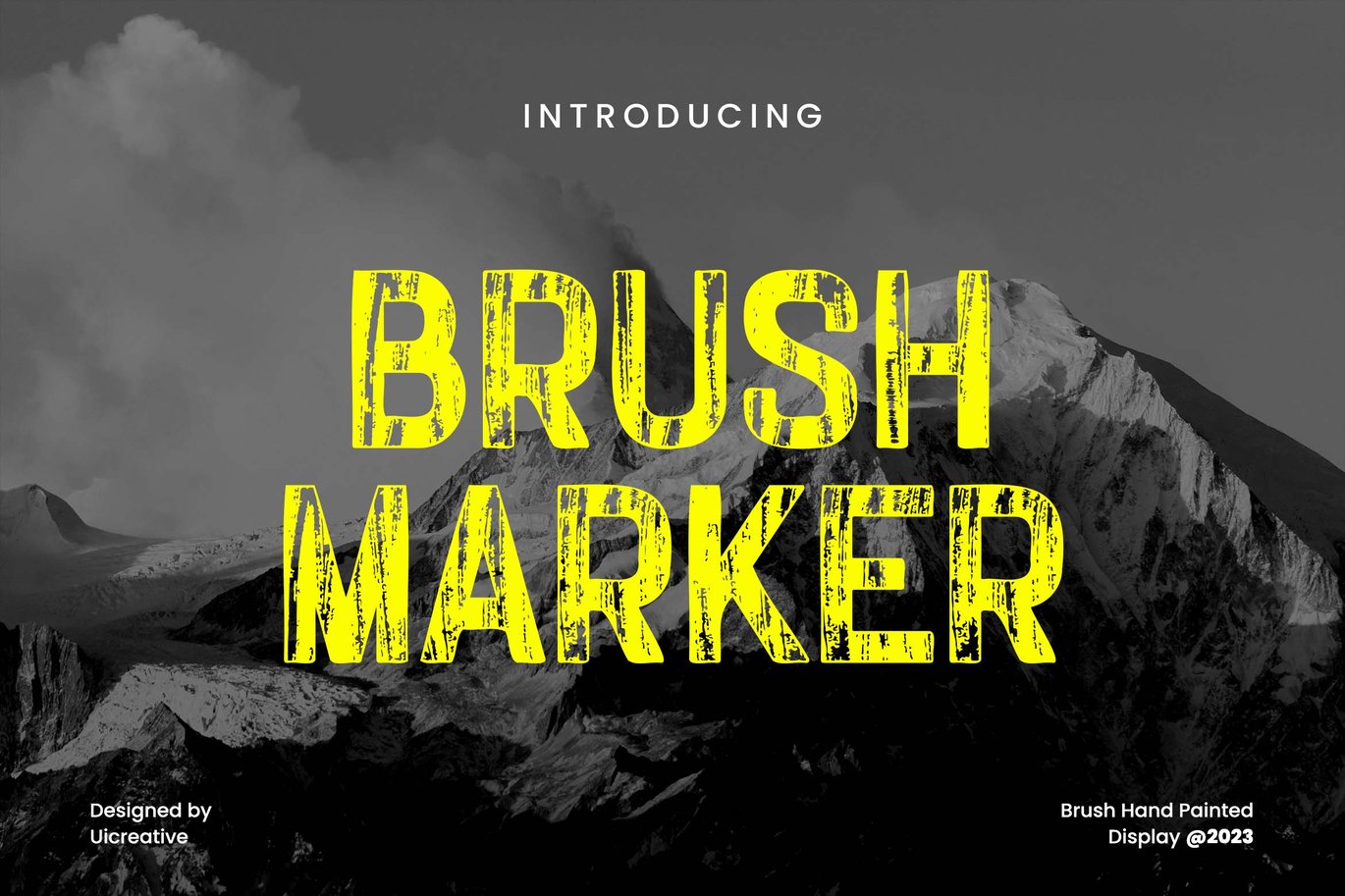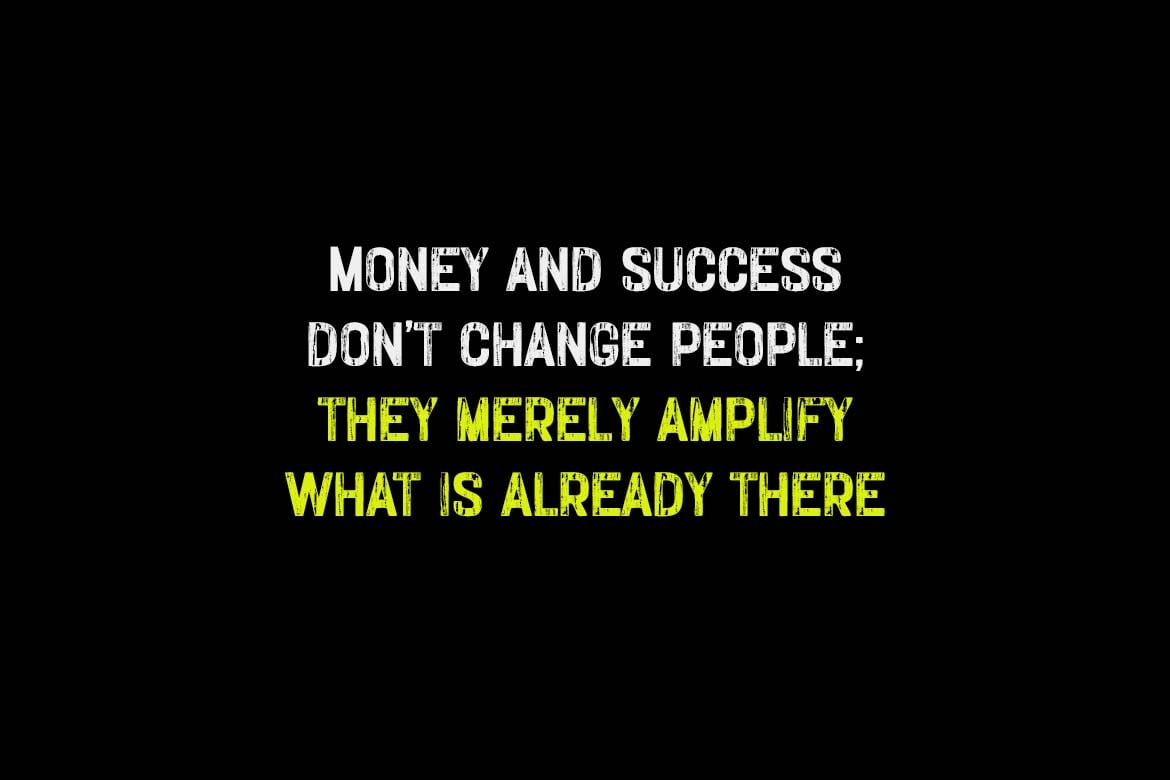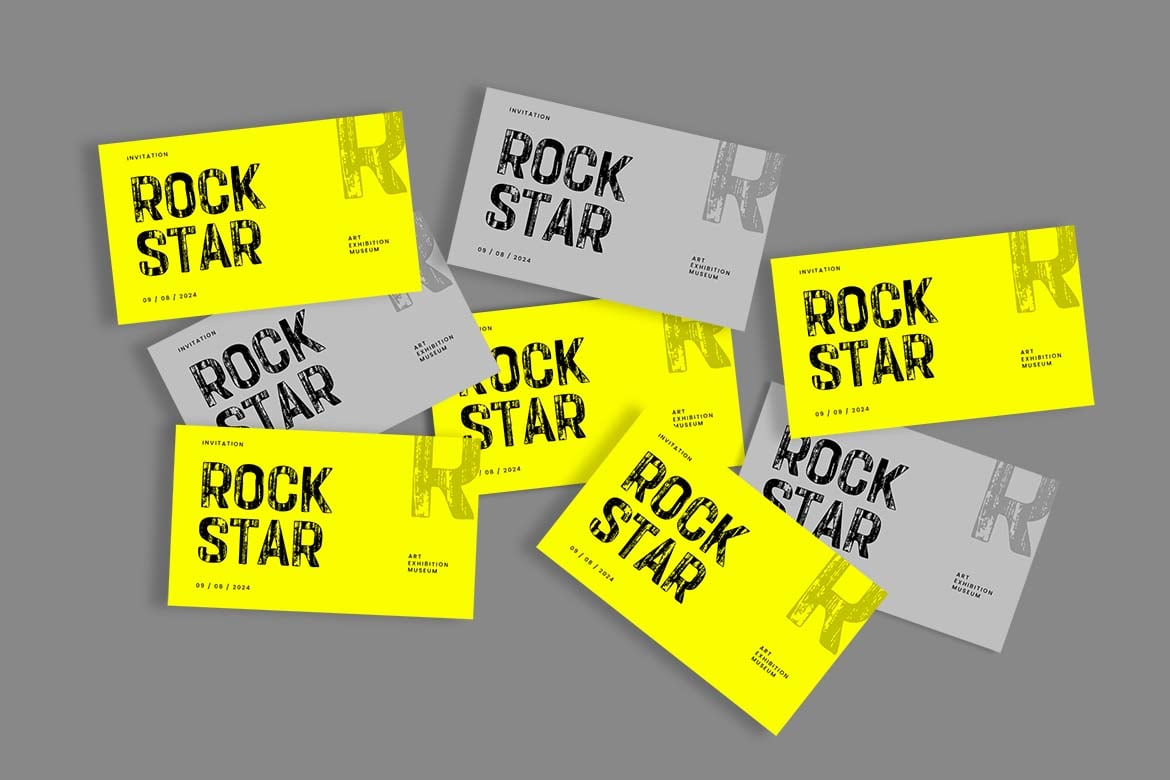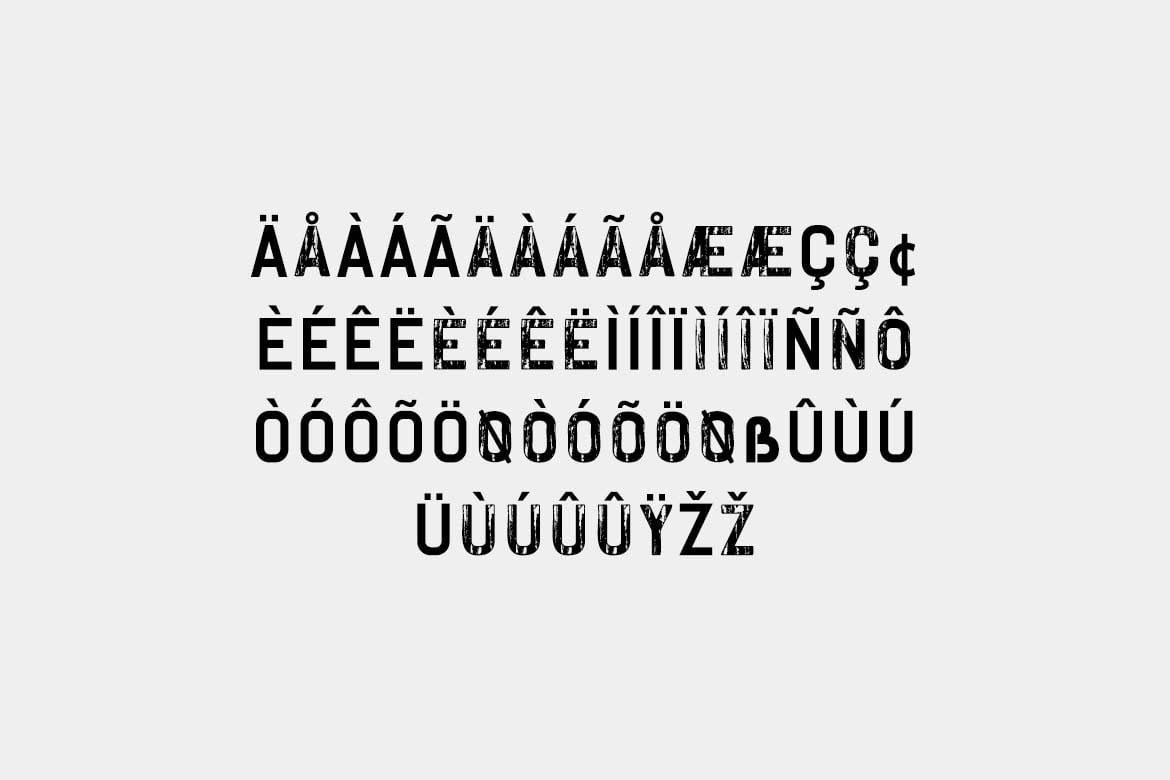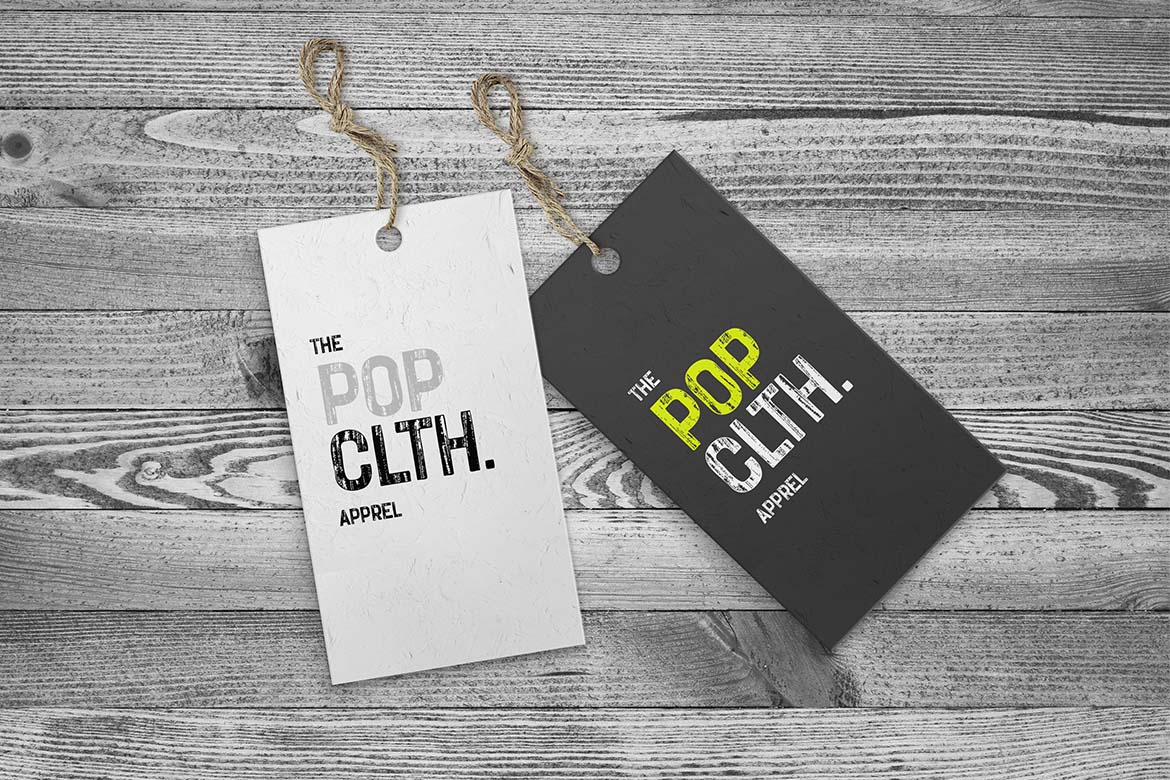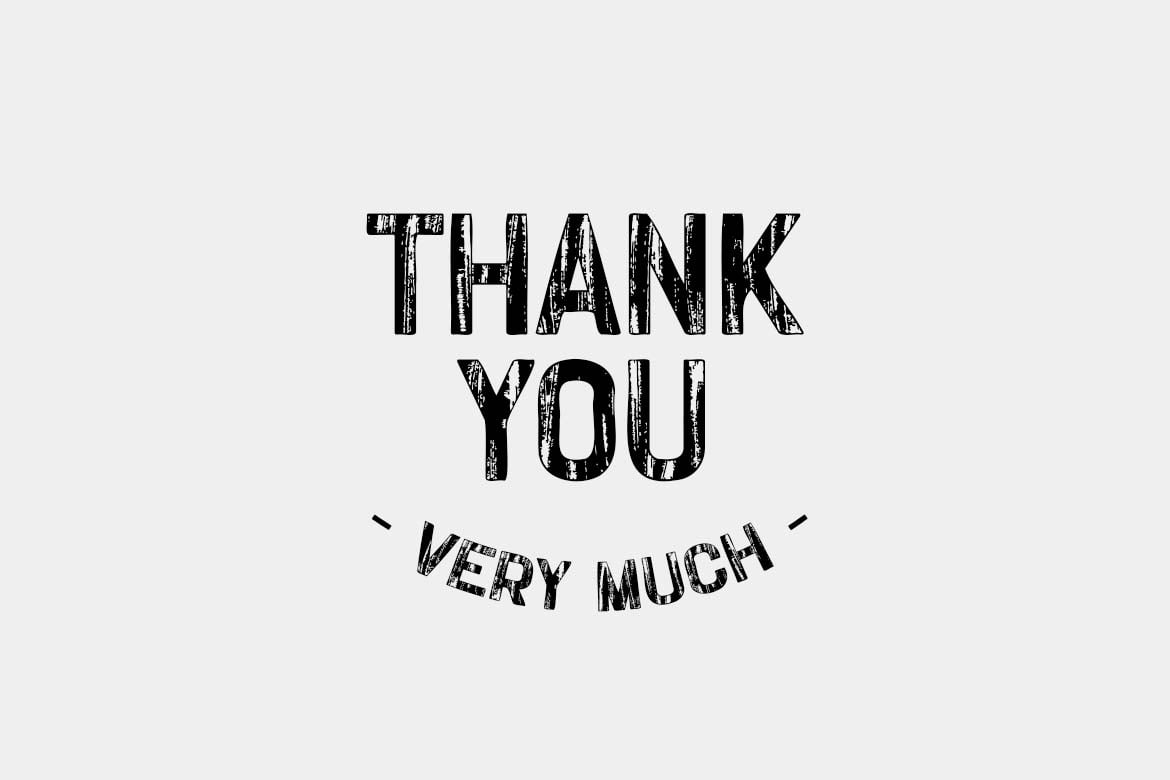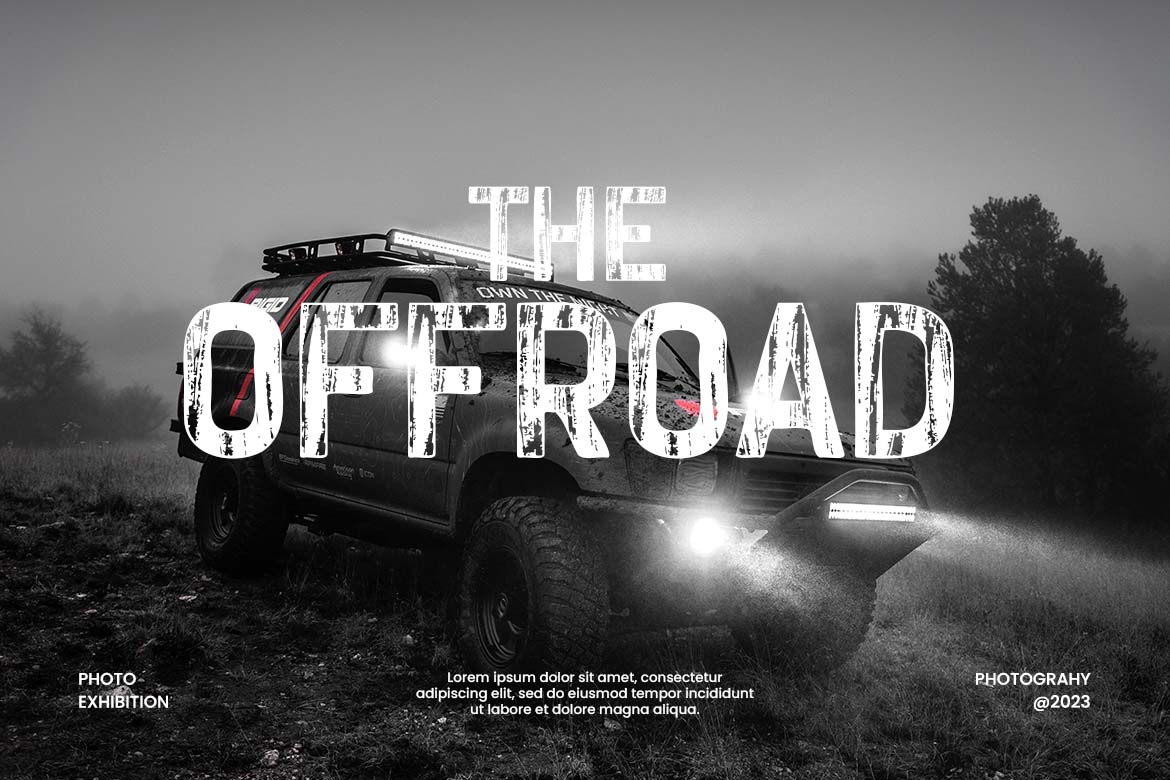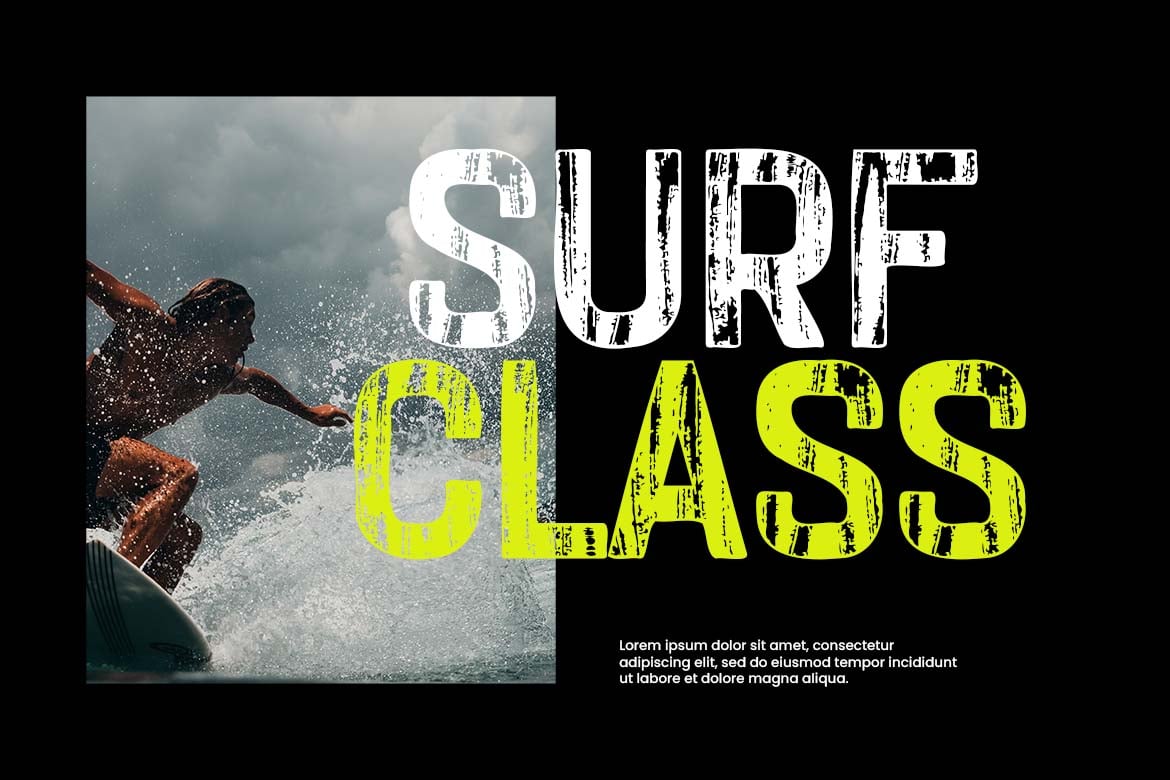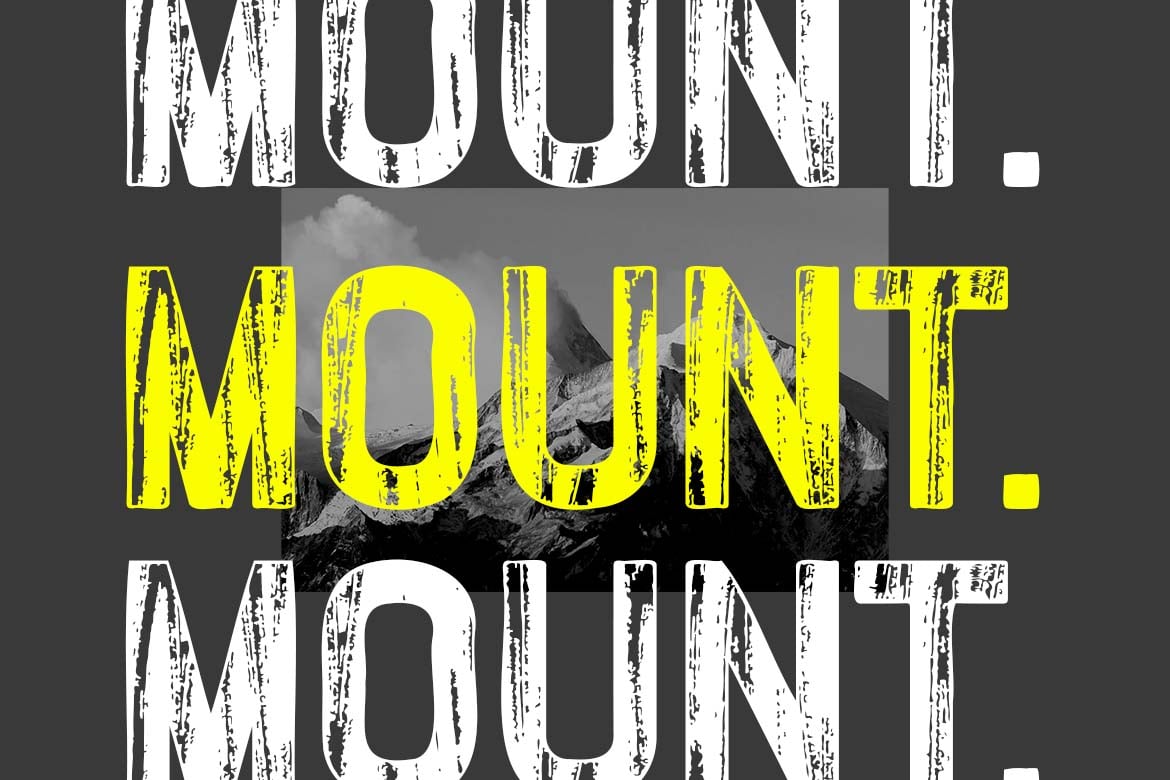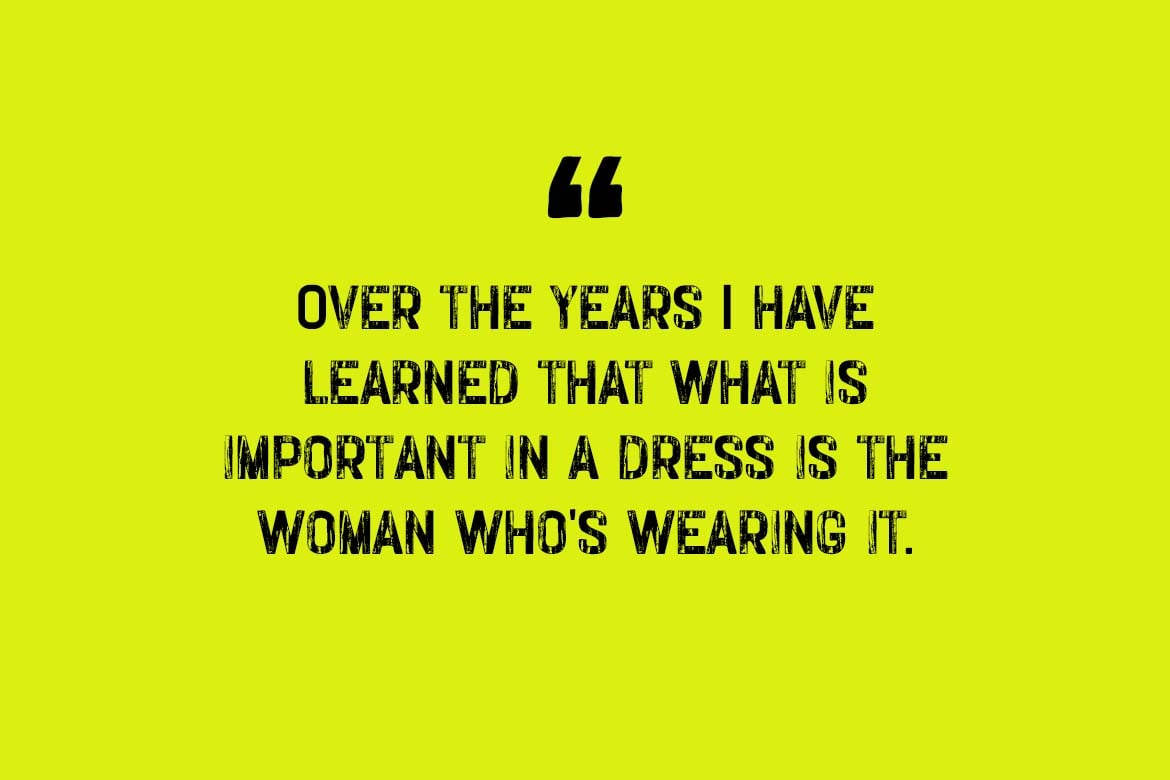
BrushMarker Hand Painted Font
Introducing our new product the name is BrushMarker Hand Painted Font. BrushMarker Hand Painted Font that feels beautiful classy, elegant, and modern. This font is perfectly suited for a wide variety of projects, such as signature, stationery, logo, wedding, typography quotes, magazine or book covers, website headers, branding, packaging design, and more. Also, fashion-related branding or editorial design displays both masculine and feminine qualities.